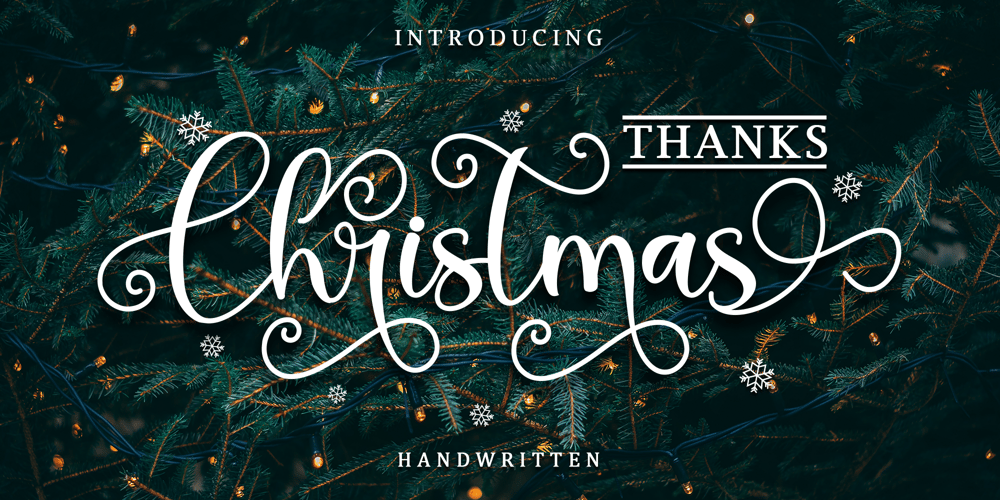
Thanks Christmas Font Family was designed by Alif Ryan Zulfikar and published by Sakha Design. Thanks Christmas contains 2 styles and family package options. Thanks Christmas feels equally charming and elegant. It looks stunning on wedding invitations, thank you cards, quotes, greeting cards, logos, business cards and every other design which needs a handwritten touch.Thanks Christmas is PUA encoded which means you can access all of the glyphs and swashes with ease!